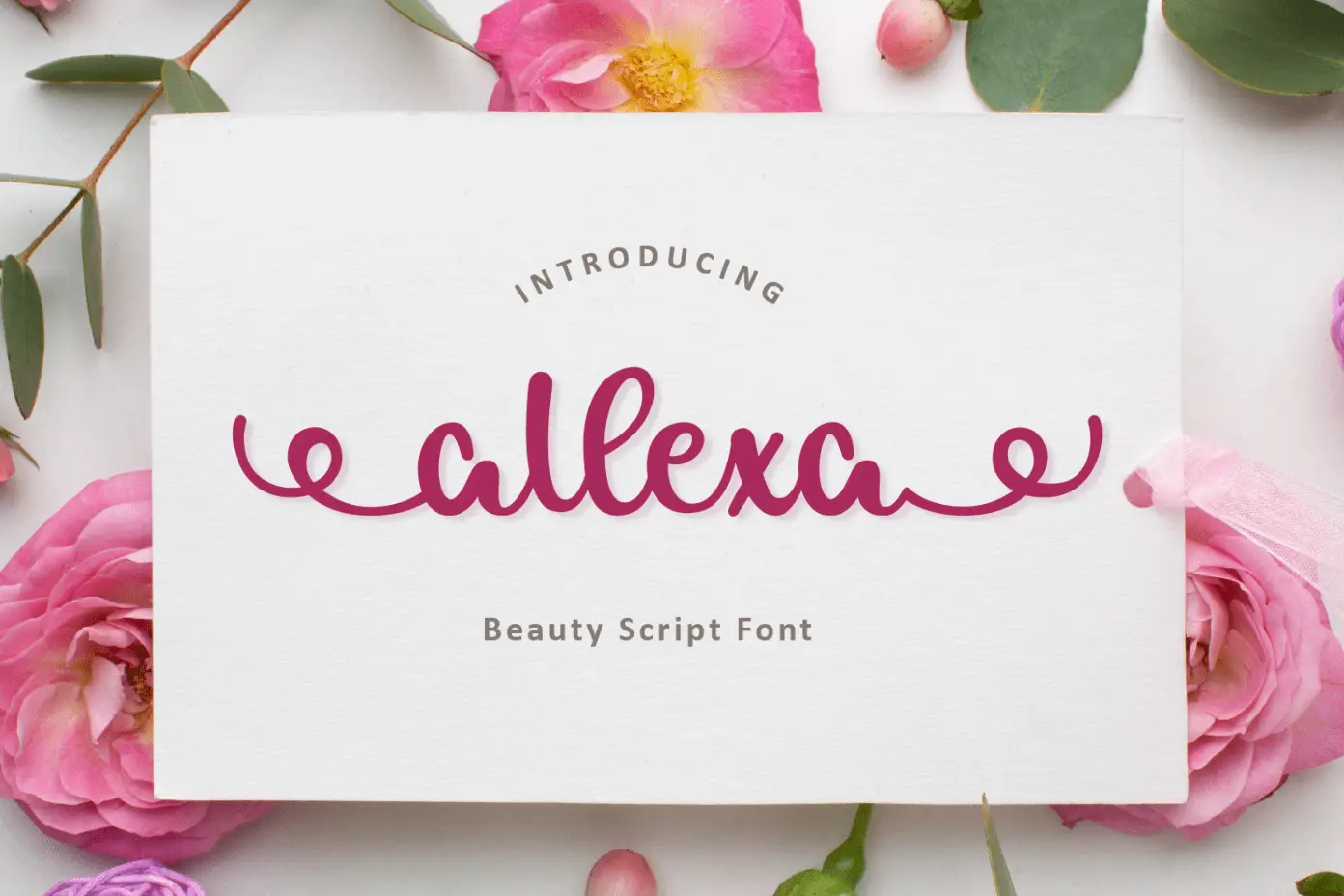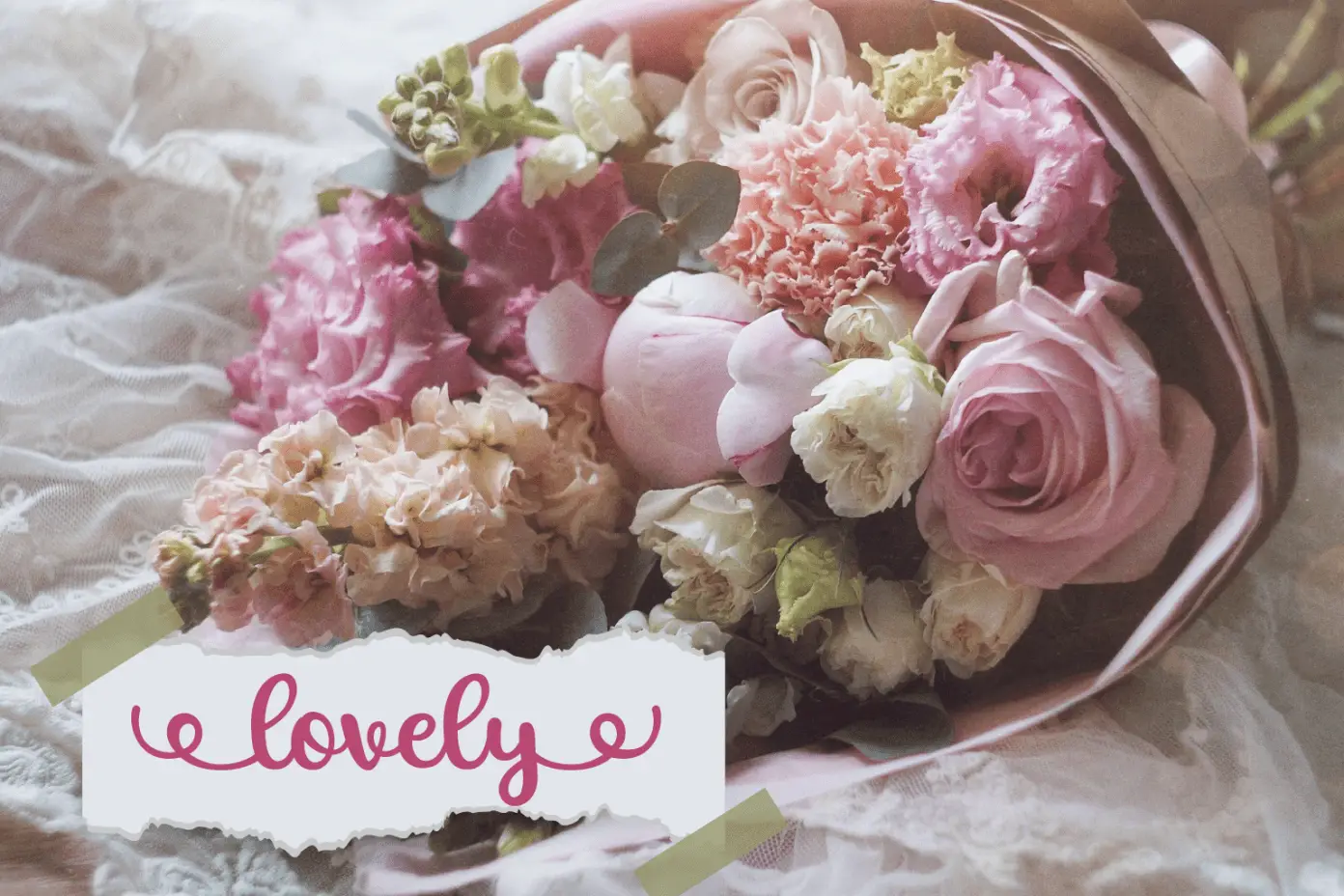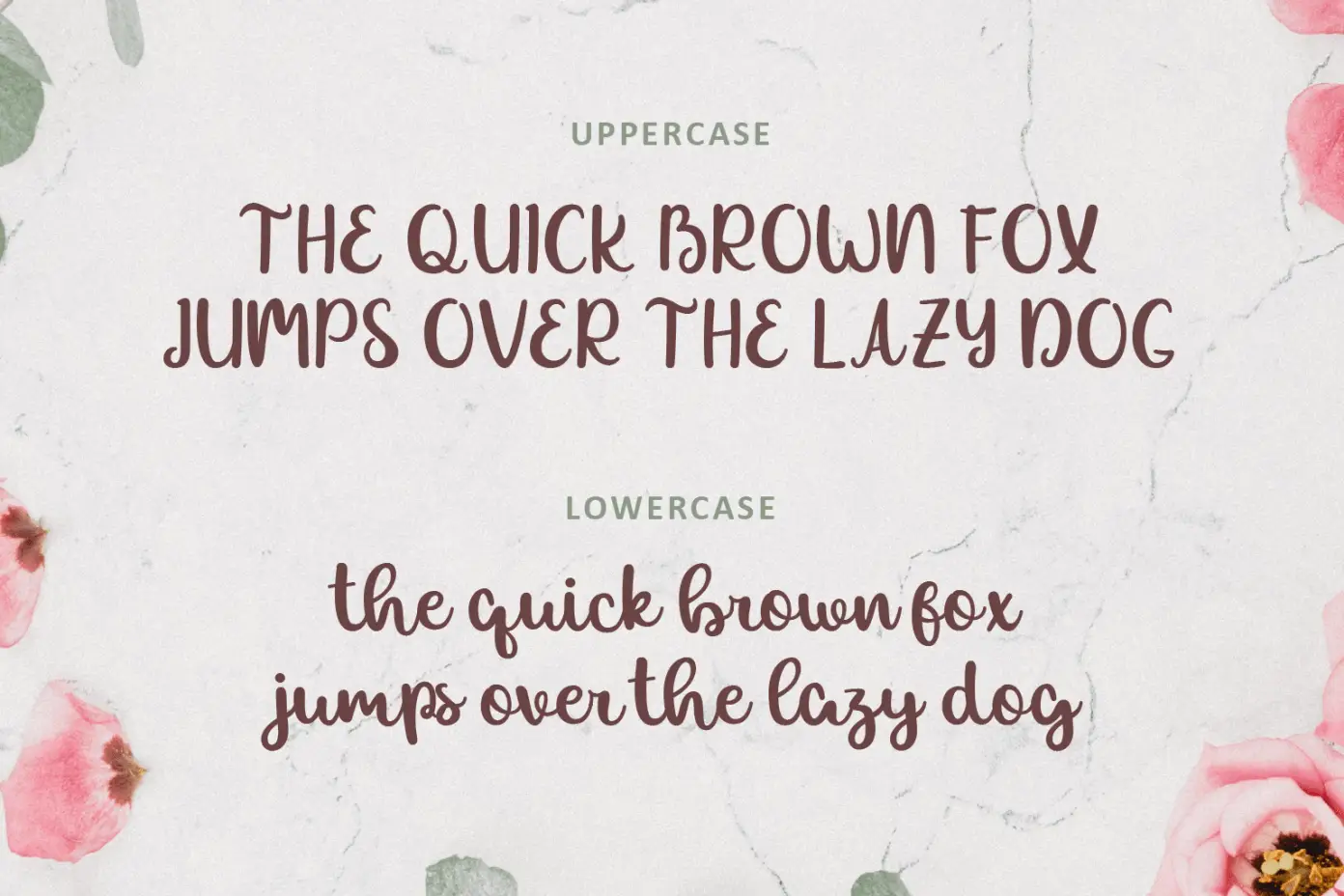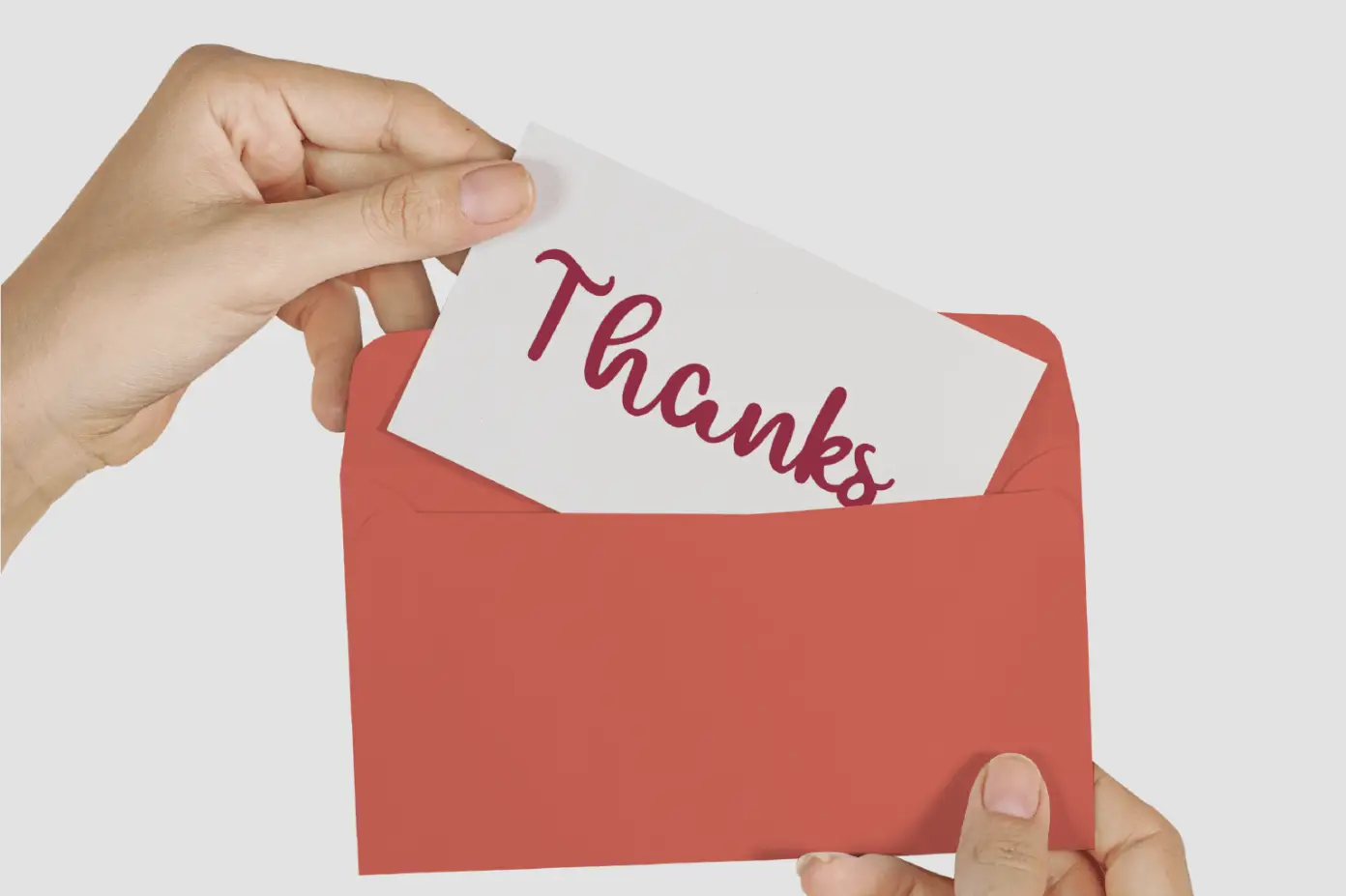
Allexa Script Font
The Allexa Script Font is a beautifully crafted typeface that embodies elegance and sophistication. With its flowing curves and stylish letterforms, this font is perfect for a variety of creative projects.
• Stylish script design
• Uppercase and lowercase characters
• Style: Script
• Weight: Regular, Bold
• Ideal for branding, logos, and invitations
• Great for web design and print materials
• Use in UI designs for a modern touch